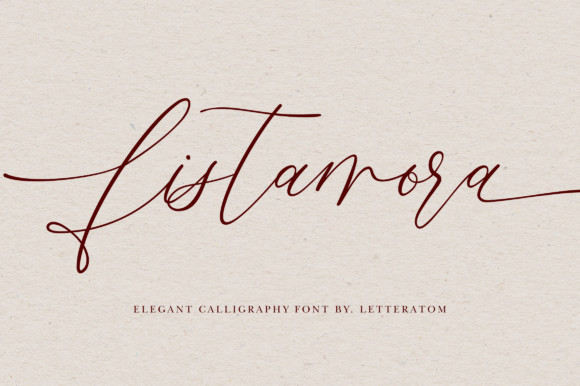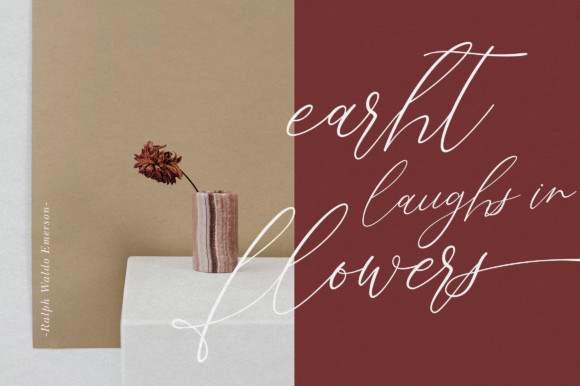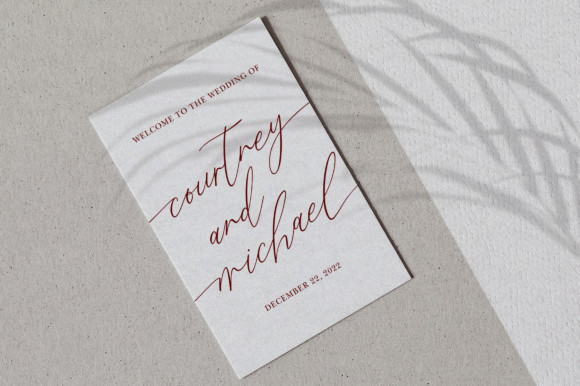
Fistamora Font
Fistamora is a luxurious handwritten font. It has a clean, thin and smooth vibe and it will be a hit for any design that you want to add it to.